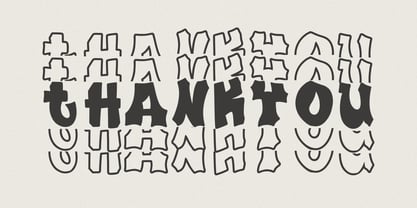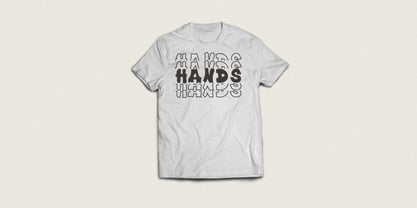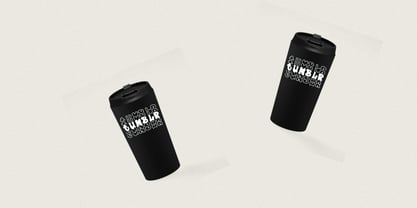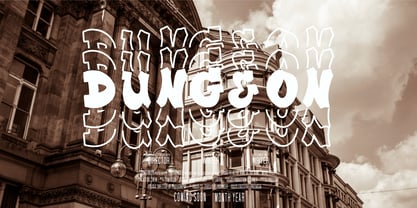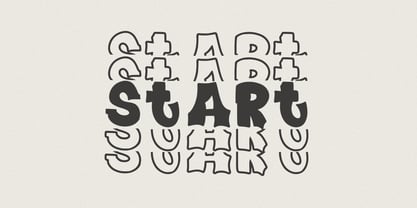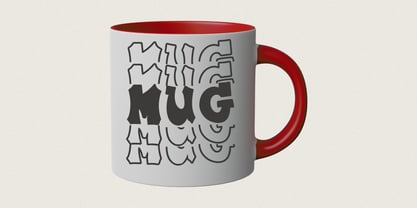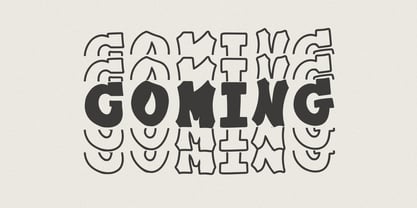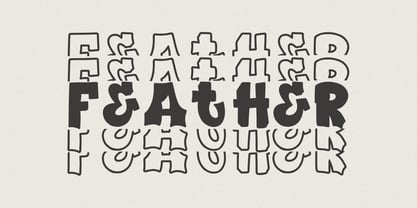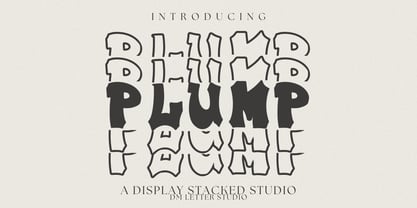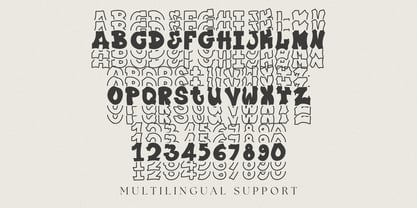
Plump Stacked
von DM Studio
Die Schriftfamilie Plump Stacked wurde von Dimas Prasetyo entworfen und von DM Studio veröffentlicht. Plump Stacked enthält 1 Stile. Mehr über diese Familie
Meet Plump Stacked, the Display Font Plump Stacked is a bold stacked display font built for loud, layered headlines that feel chunky, fun, and instantly readable. The stacked style gives your words a built-in 3D look, so designs feel finished without extra editing. Strokes stay thick and balanced, which keeps letters clear on screen and in print. Because counters remain open, small labels stay legible while big titles look extra punchy. Use it for logos, stickers, packaging, YouTube thumbnails, posters, merch slogans, and sale banners. As a result, your designs get that “wow” factor fast. Why Plump Stacked sells First, it installs fast and works smoothly in Canva, Photoshop, and Illustrator. Next, the clean shapes print well and hold up for stickers, labels, packaging, and merch production. Then layouts build faster because the stacked effect creates depth without extra layers. Moreover, Plump Stacked pairs perfectly with a clean sans or a simple condensed font, so supporting text stays readable. Therefore, you can create cohesive collections and promo sets quickly. Fast layouts with the Plump Stacked font Start with a short headline in Plump Stacked and keep it punchy. After that, add details in a simple supporting font for dates, pricing, or product names. Because the stacked style already adds visual weight, keep backgrounds clean or use simple shapes like badges and rounded rectangles. In addition, try stacking two to three words for a strong poster look. Finally, save palette pairs like navy & cream, cherry & ivory, teal & white, or charcoal & neon to repeat across your product line. Creative uses and quick wins Logo titles, brand marks, and product name badges Sticker packs, label sets, and packaging fronts Posters, sale banners, and event headlines Merch slogans, thumbnails, reels covers, and bold quote posts What you get Uppercase, lowercase, numbers, punctuation Stacked display style for instant depth Multilingual Latin support (where included in your build) Curves tuned for clean print and high-res exports Design tips for Plump Stacked Keep phrases short so the stacked effect stays strong. Also, add a thin outline or soft shadow only when you need extra contrast on busy backgrounds. For printing small labels, increase tracking slightly so counters stay open. Finally, export at 300 DPI for print and at 2× size for web, so edges stay smooth everywhere.
Designer: Dimas Prasetyo
Foundry: DM Studio